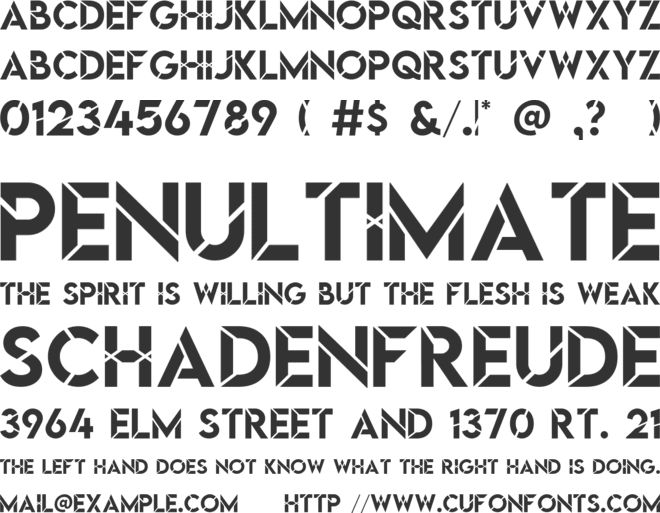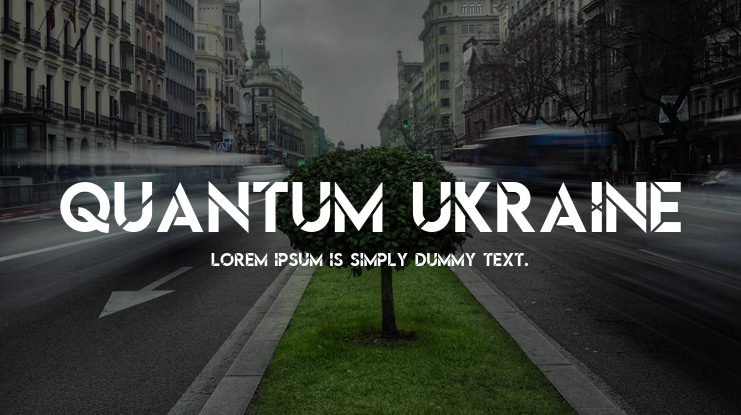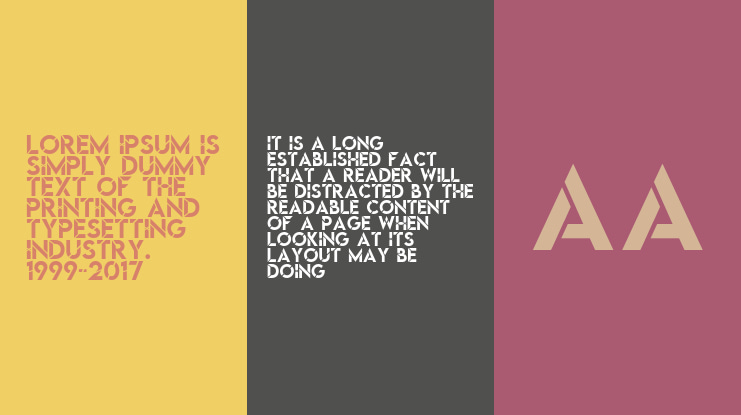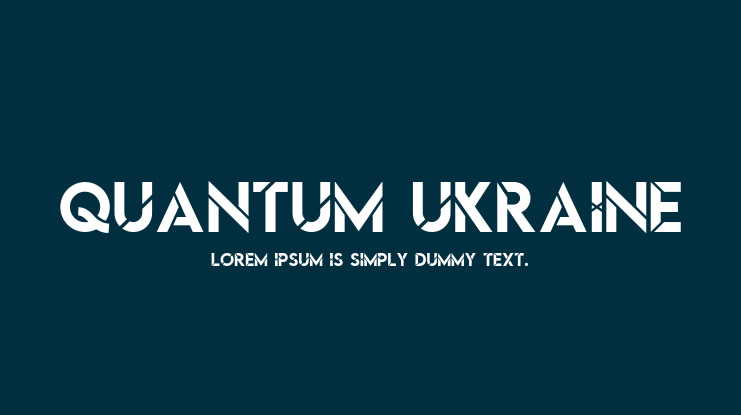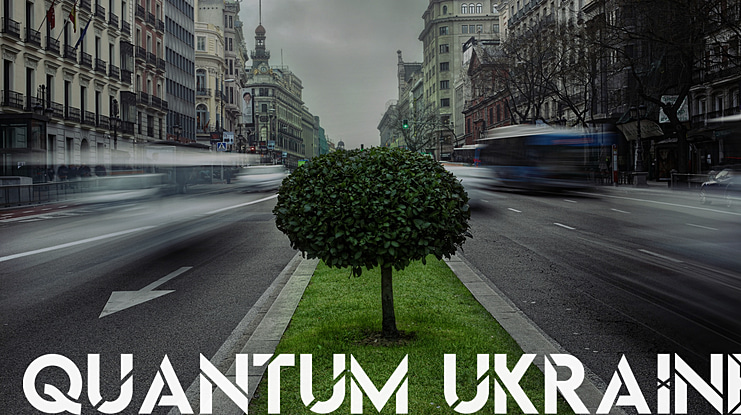
Quantum Ukraine Font
Quantum Ukraine is a Ukraine Colored Font. And it is 100% Free.
Based on Quantum Lemon font: https://www.fontspace.com/quantum-lemon-font-f83193